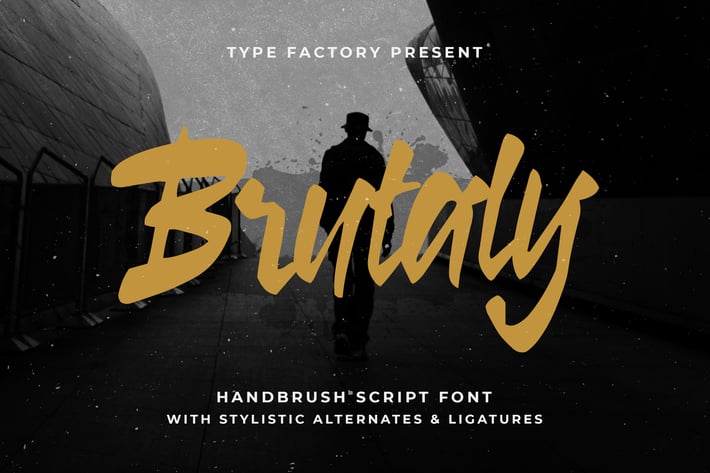
Brutaly - Handbrush Script Font
Brutaly is a brush script typeface.
Perfectly suitable for creating Brands, quotes, album cover, Art, lifestyle designs such as logos, title, and magazines and more.